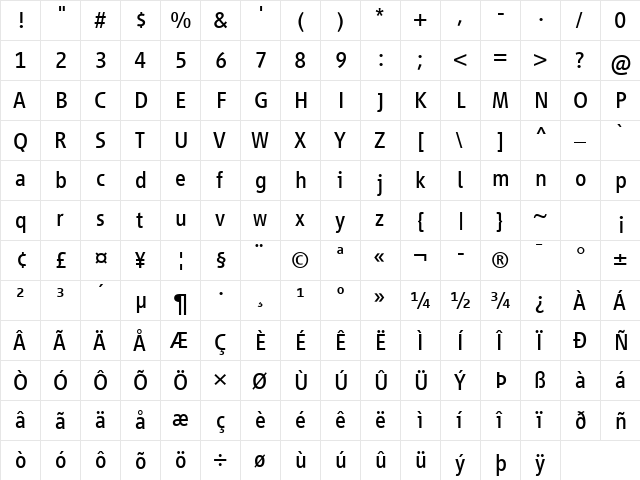
Vialog LT Com Regular
| Foundry | Linotype GmbH |
| Designer | Werner Schneider |
Design Context for Vialog LT Com Typeface
Vialog LT Com offers clean, dependable letterforms without strong stylistic allegiance, making it a practical choice for designers who need flexibility. Its slender proportions lend an understated elegance to any composition.